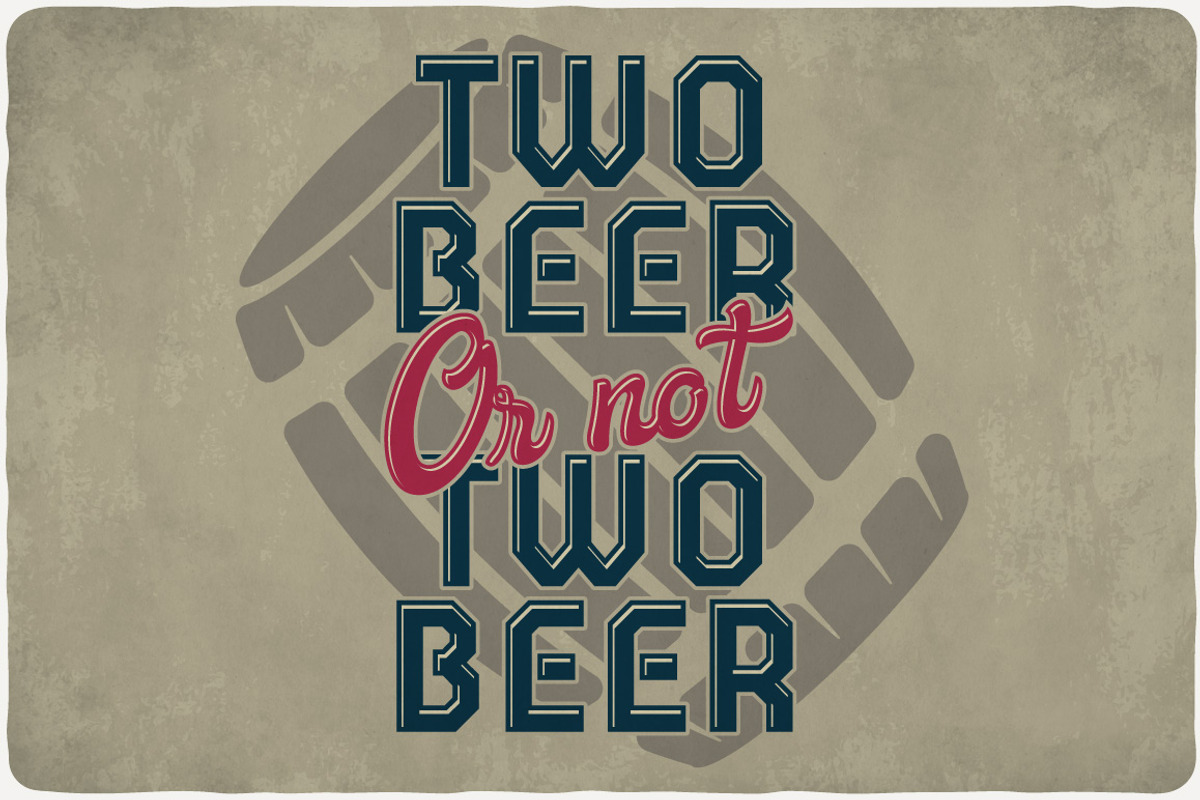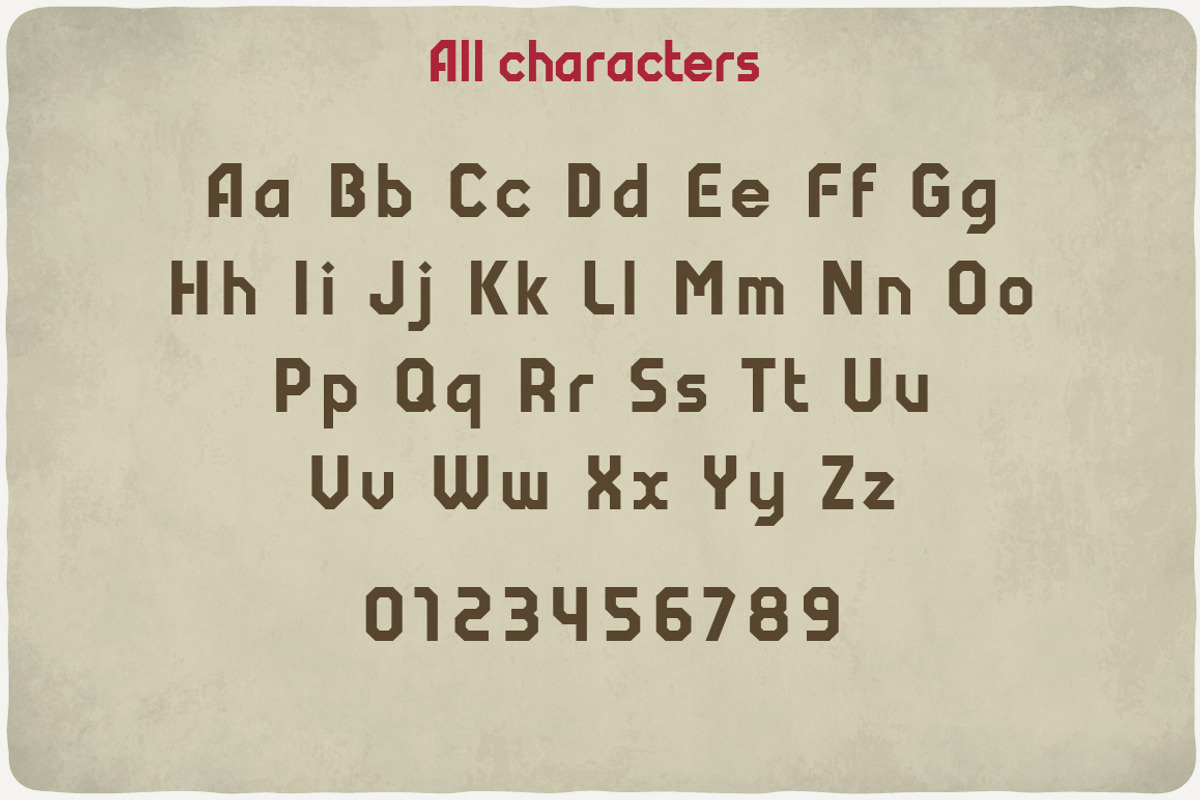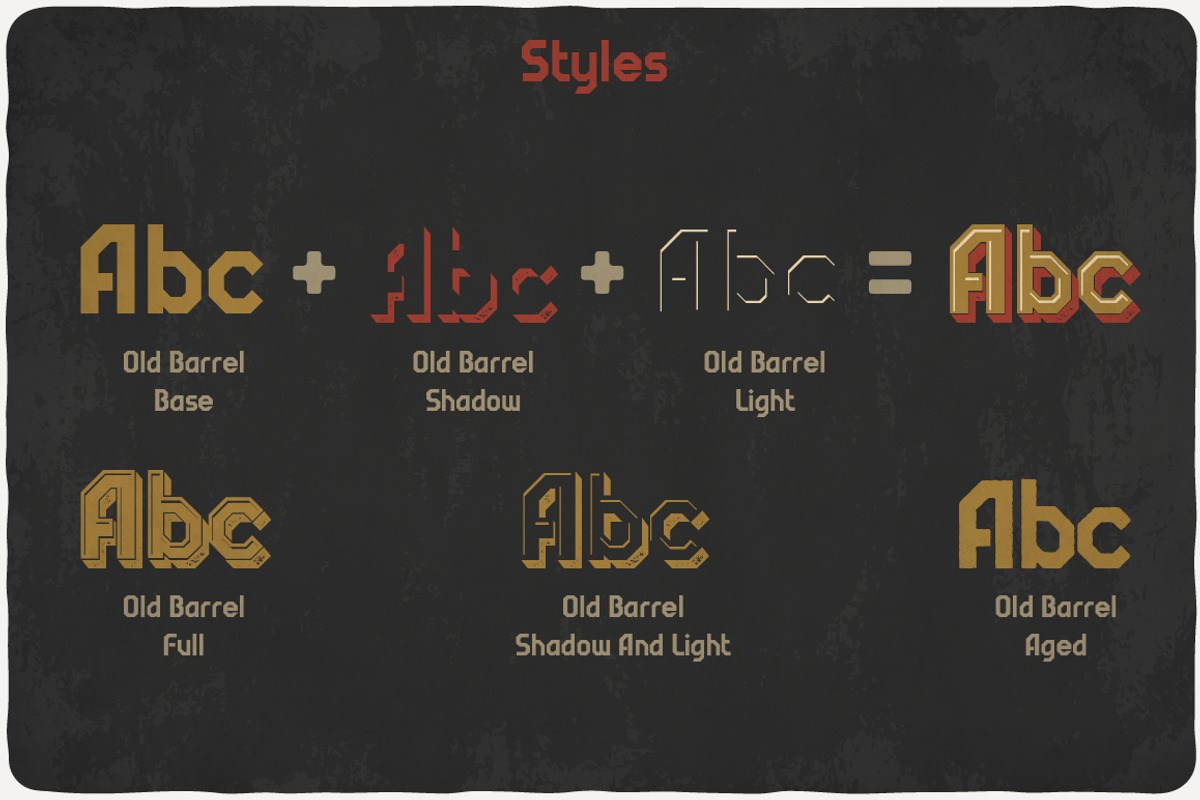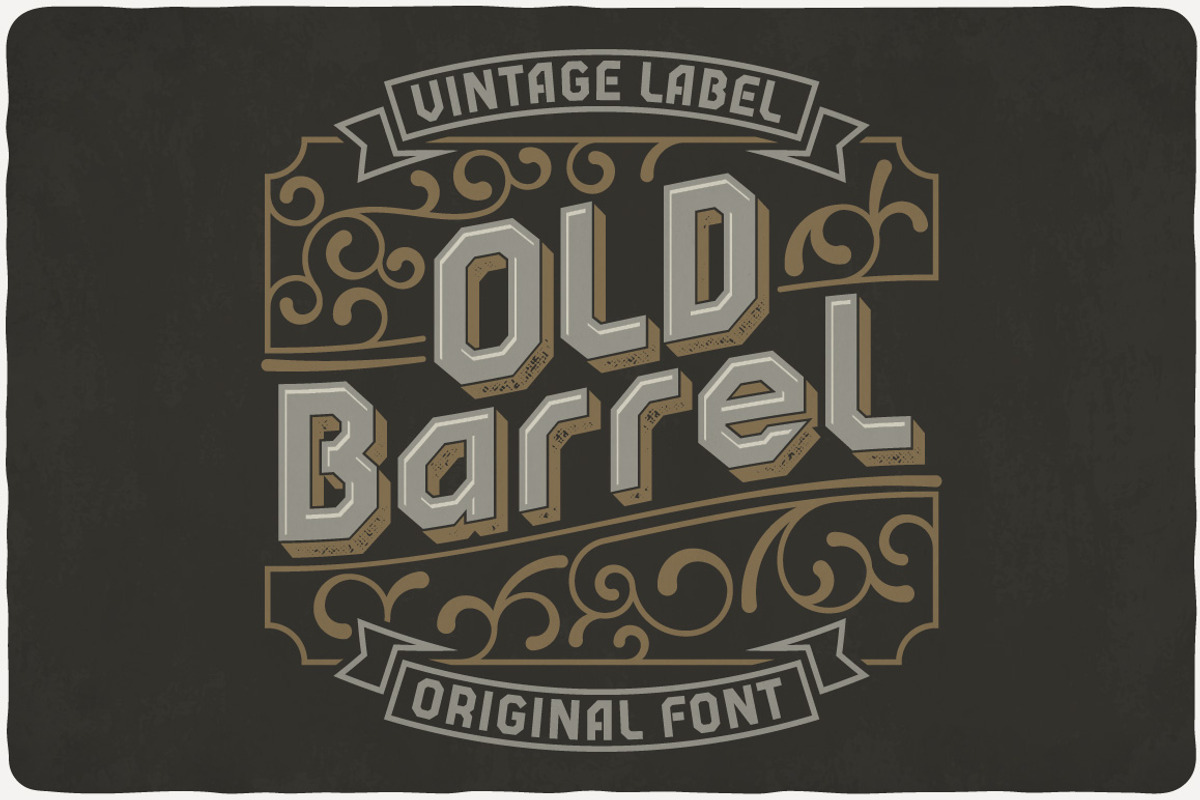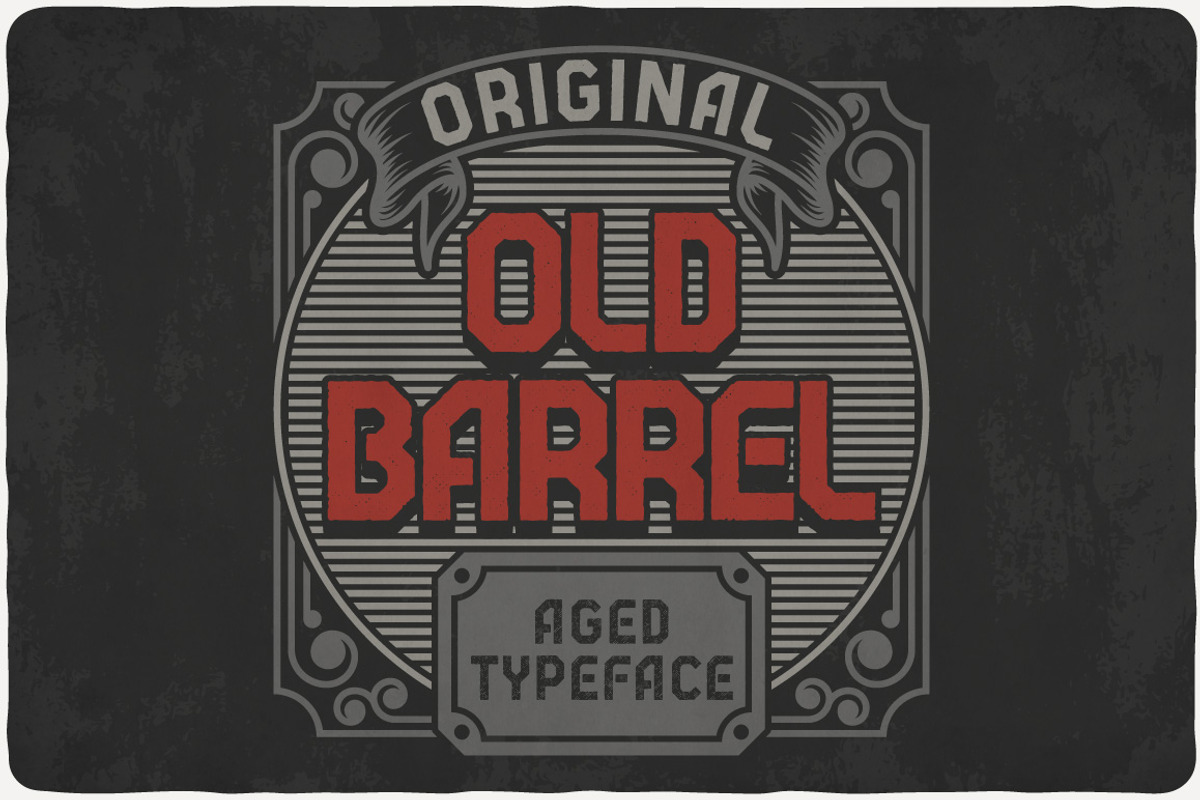
Old Barrel typeface
Introducing a vintage look label typeface named "Old Barrel". It's made in old school and vintage label style. Typeface is good viewed on any yours design.
- Old Barrel Light
- Old Barrel Shadow And Light
- Old Barrel Aged
- Old Barrel Base
- Old Barrel Full
- Old Barrel Shadow
Old Barrel typeface by VozzyStock fits naturally into Branding, posters, packaging, typography.